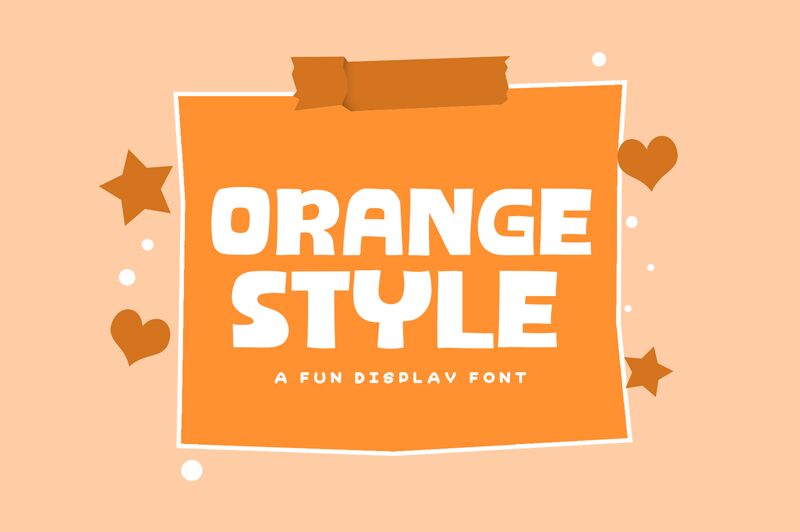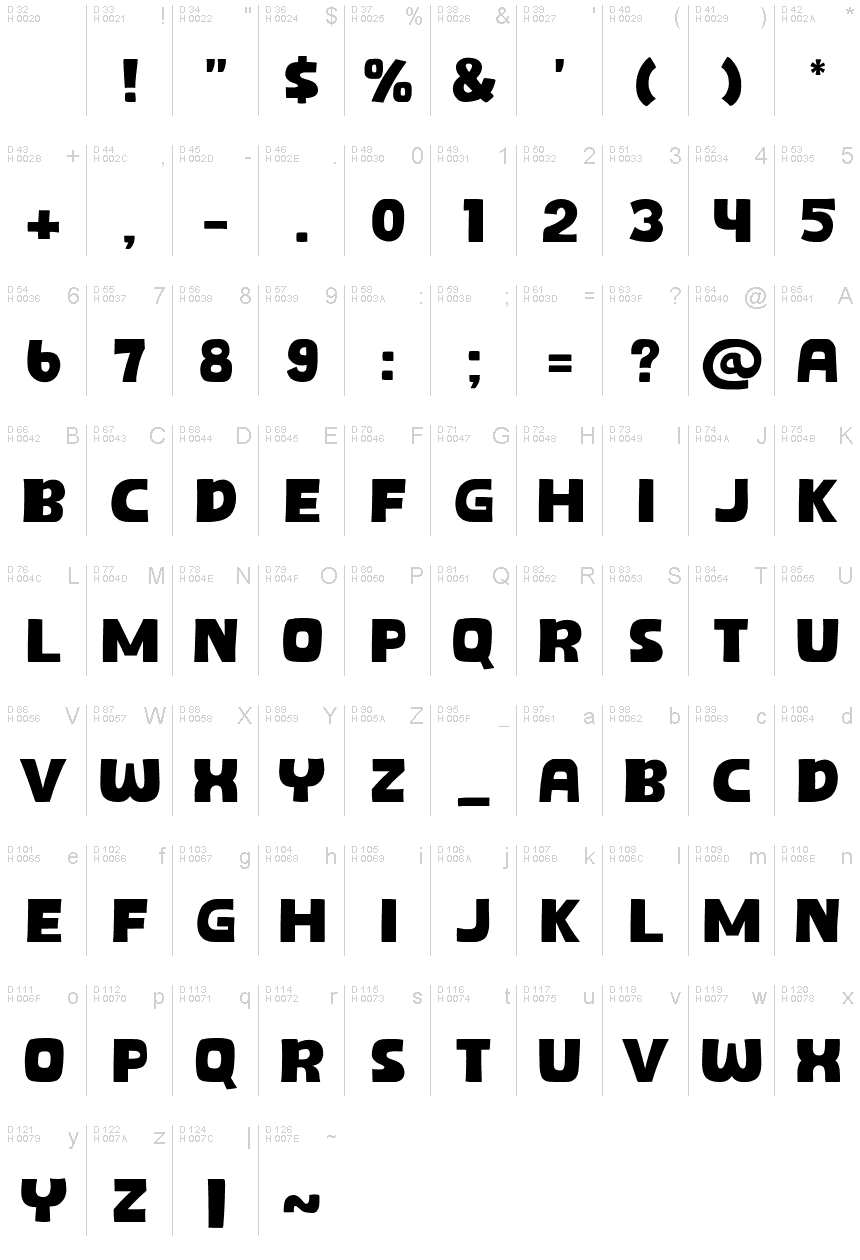
Orange Style
Step into the world of whimsy with Orange Style, a captivating display font crafted by the talented Khurasan. This cartoon-style typeface boasts extra-bold weight and semi-expanded width, making it an instant eye-catcher for any project demanding a burst of exuberance. Its charmingly rounded edges and playful structure infuse your designs with lightheartedness, perfect for injecting life into logos, attention-grabbing headlines, or any creative canvas that dares to stand out.
Orange Style's versatility shines across mediums - from digital marketing materials to print advertising - promising to deliver that sought-after impact while maintaining readability. Embrace this font's infectious energy and let it propel your projects to new heights of imaginative expression!